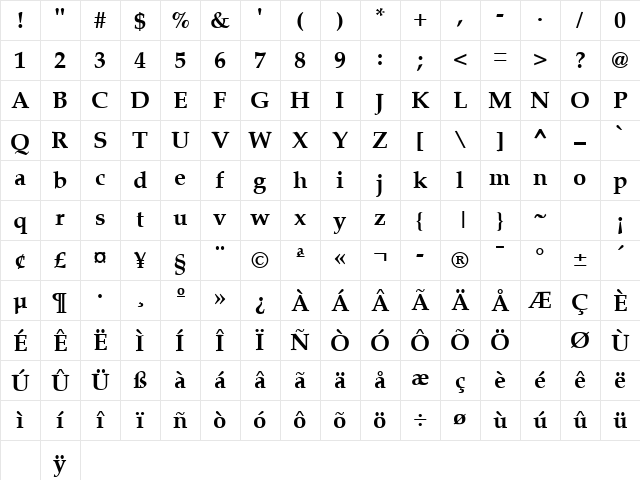
Complete Palatia Bold glyph index. Displaying only characters natively supported by Palatia Bold font.
Palatia is a composed and adaptable typeface that performs quietly and consistently across a wide range of design contexts. Its bold stroke weight gives it real presence on the page.